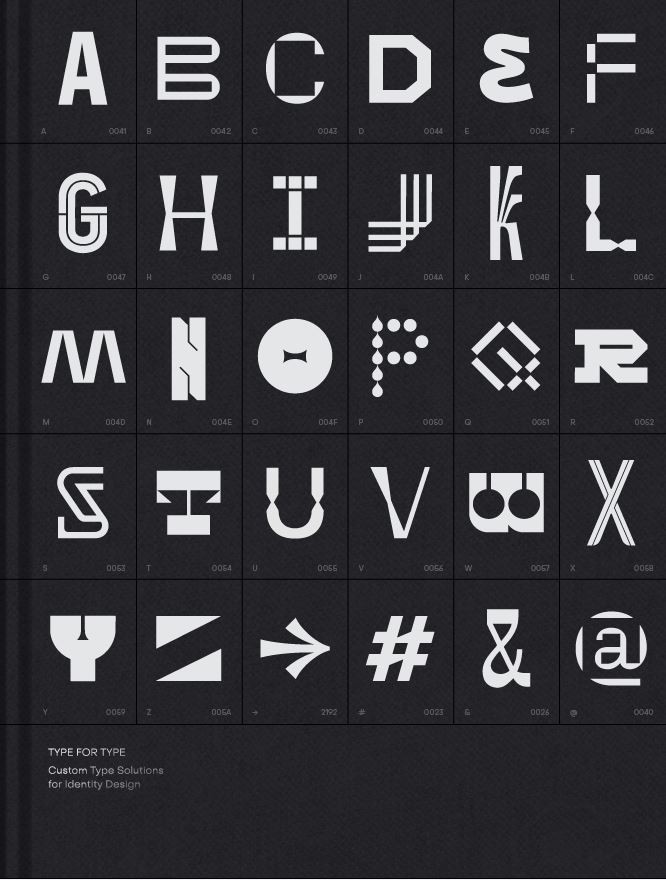
Type for Type: Custom typeface solutions for modern visual identities
Custom typefaces have become an increasingly common means for forward-thinking brands to establish and further strengthen their visual identities. By expressing a unique personality or supporting a campaign effectively, these typefaces go beyond aesthetics and achieving marketing objectives to build value for the brands over the long term. Type for Type collates some of the best custom typography work around the world that demonstrates both creative and commercial ingenuity. It also features cover stories that offer insights by some of the top design studios in the industry as well as compelling project- and technique-related details to inspire both designers and clients alike.